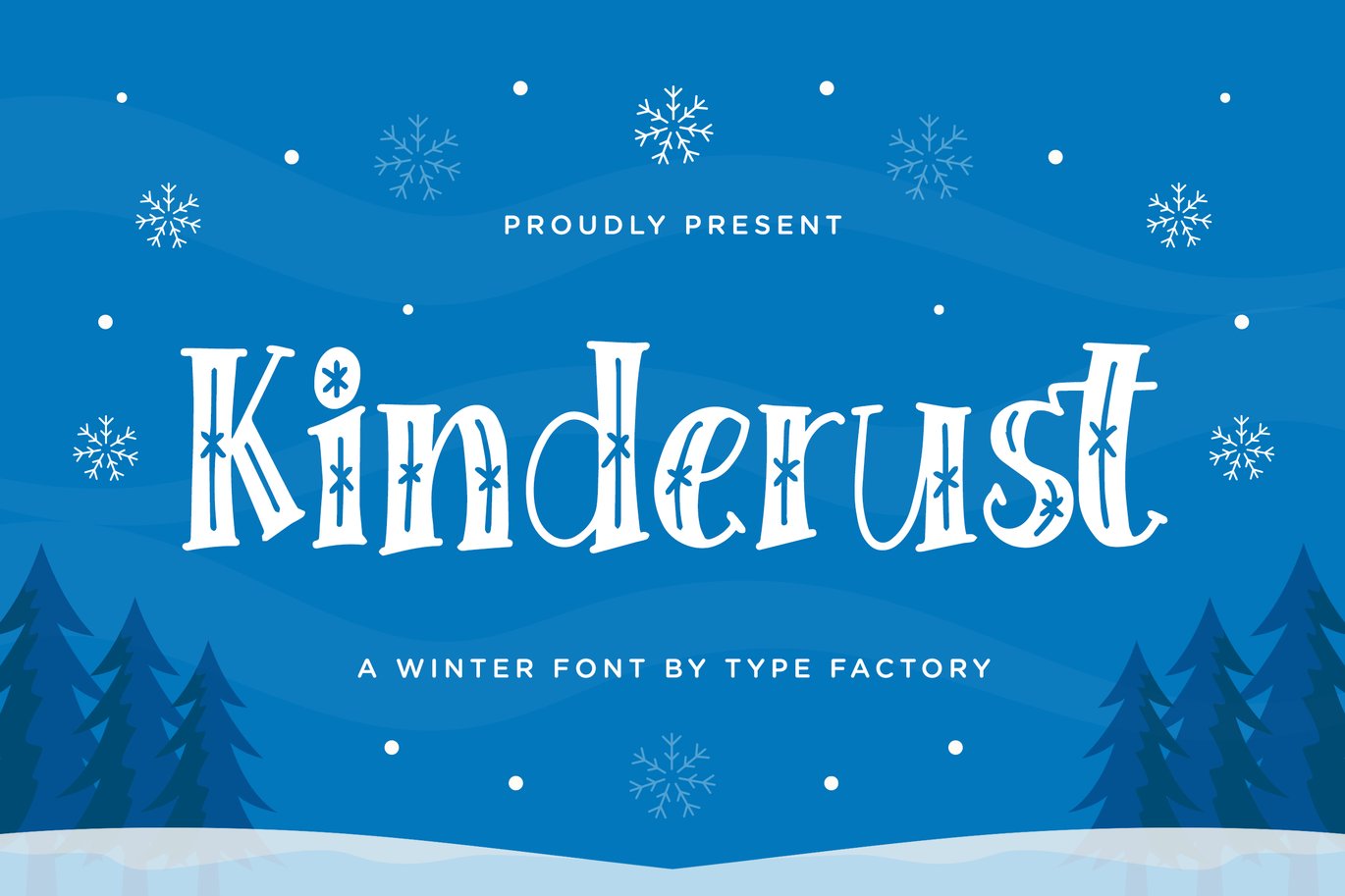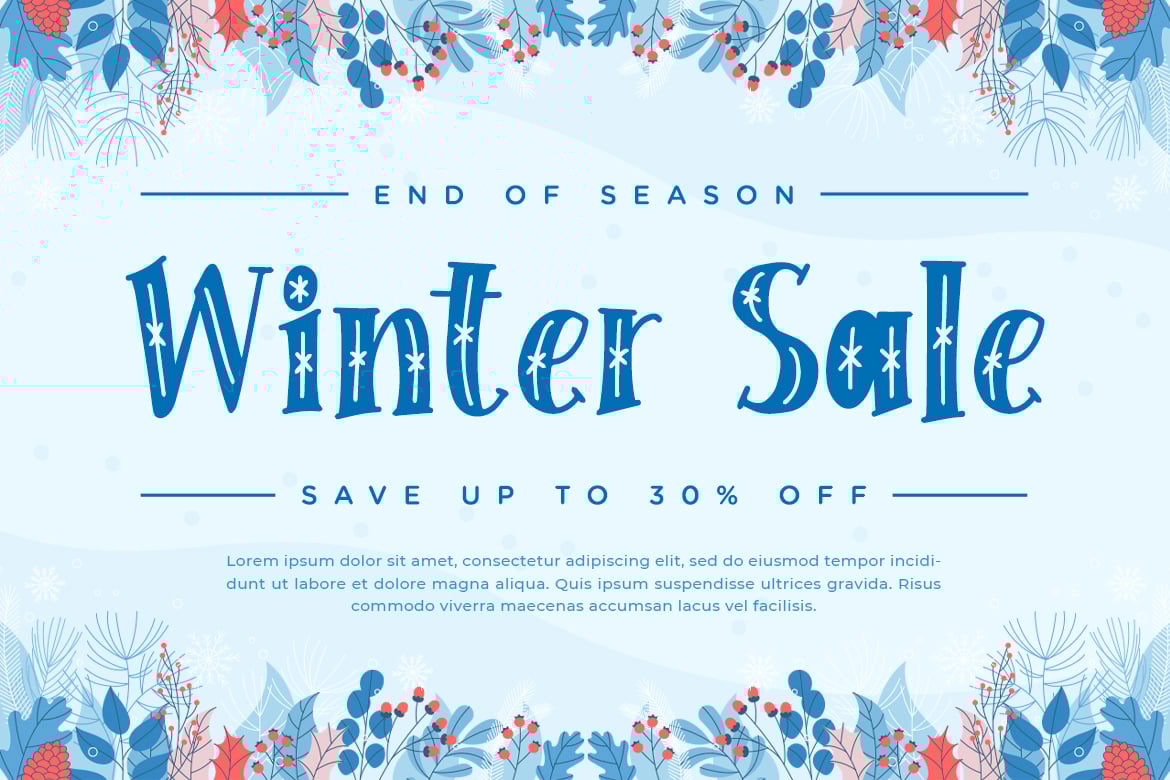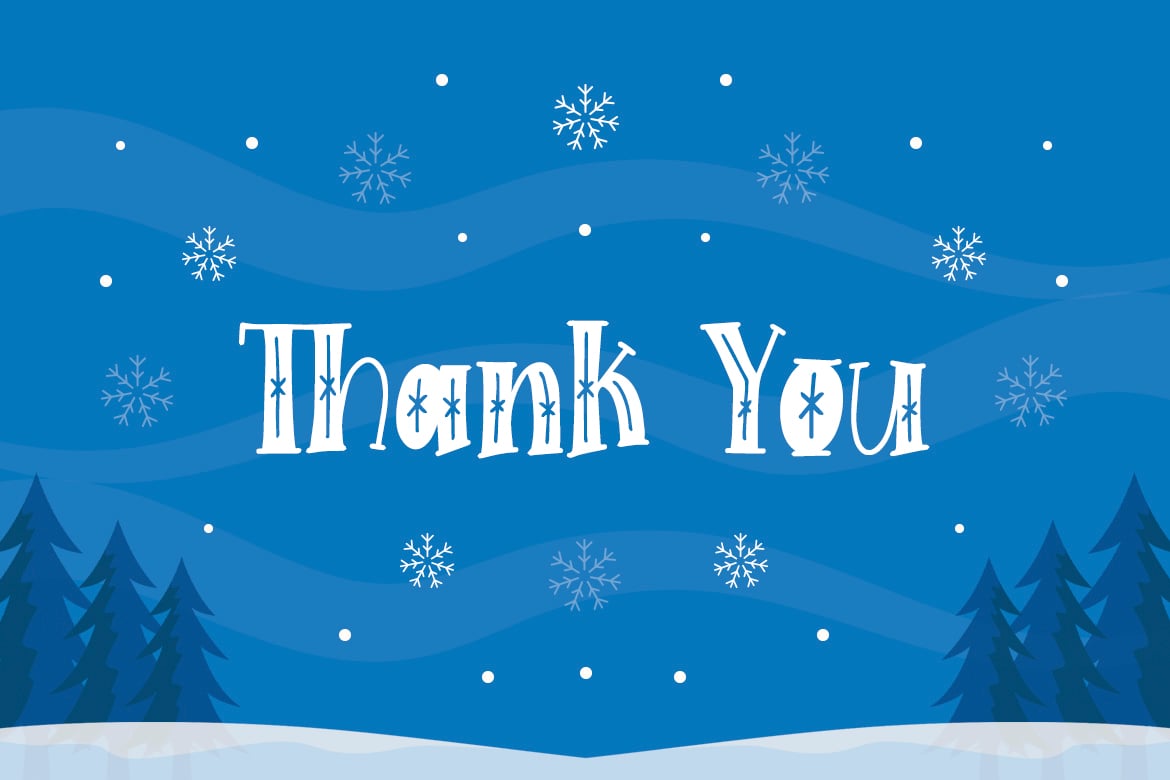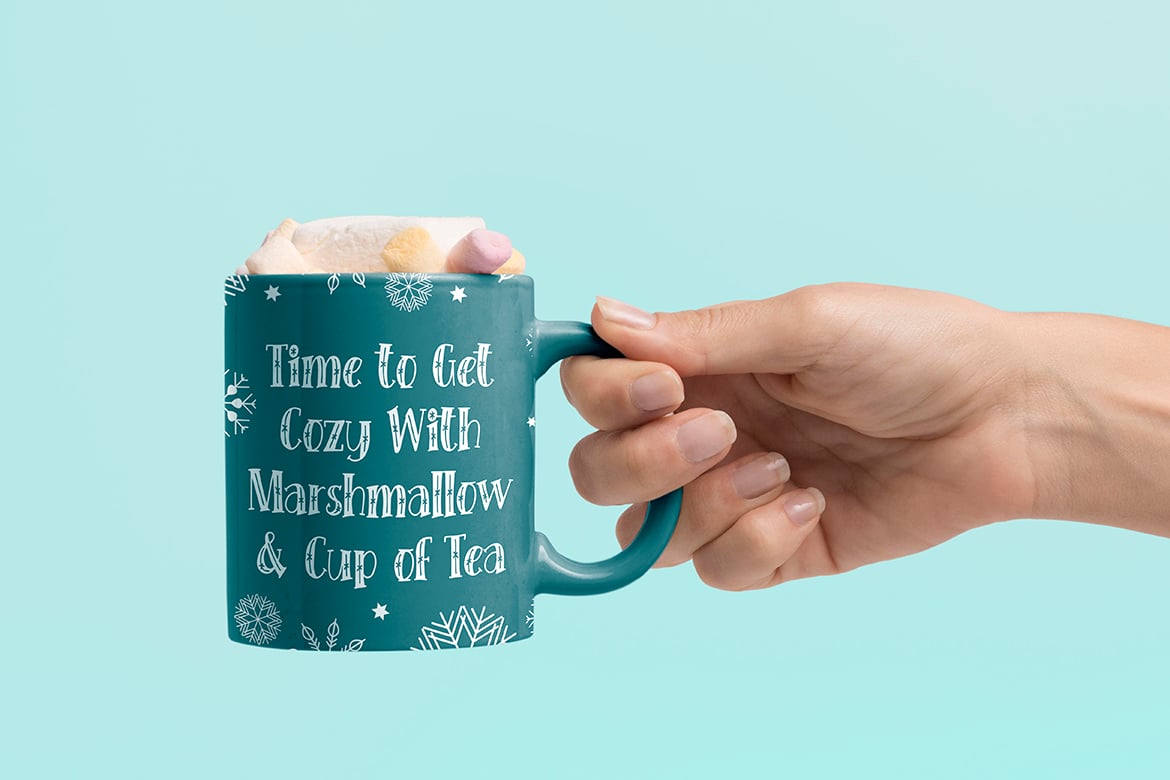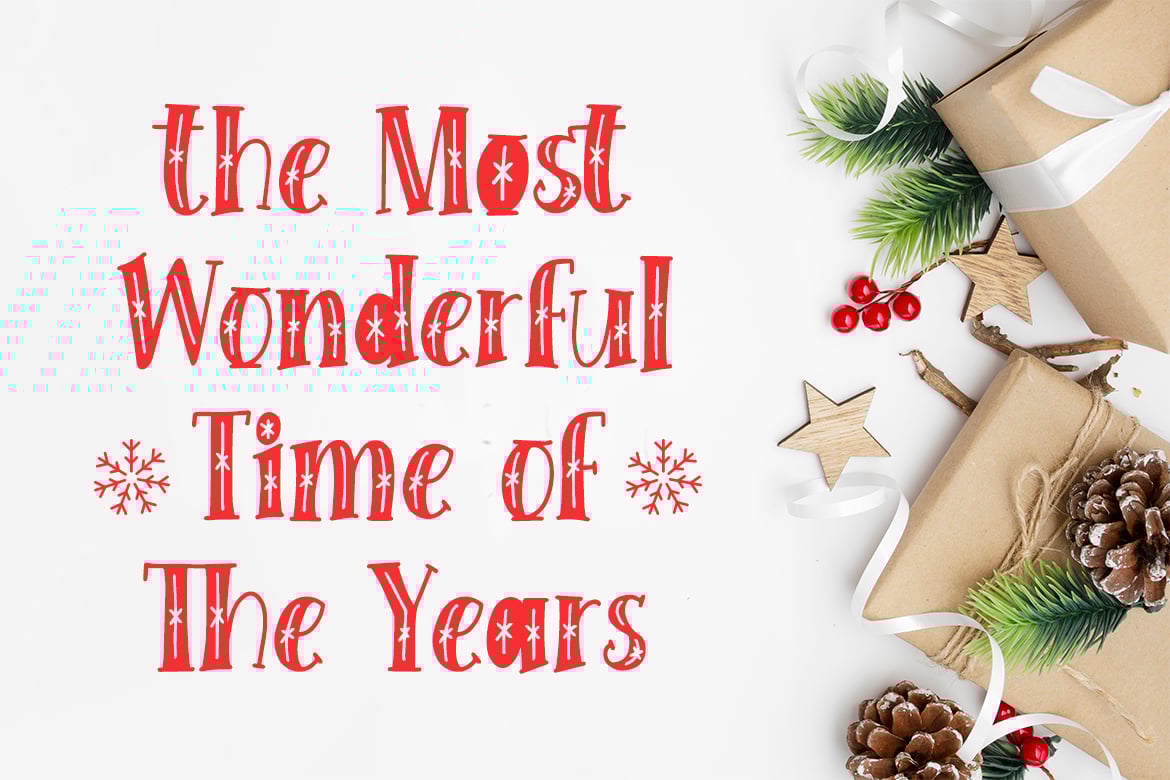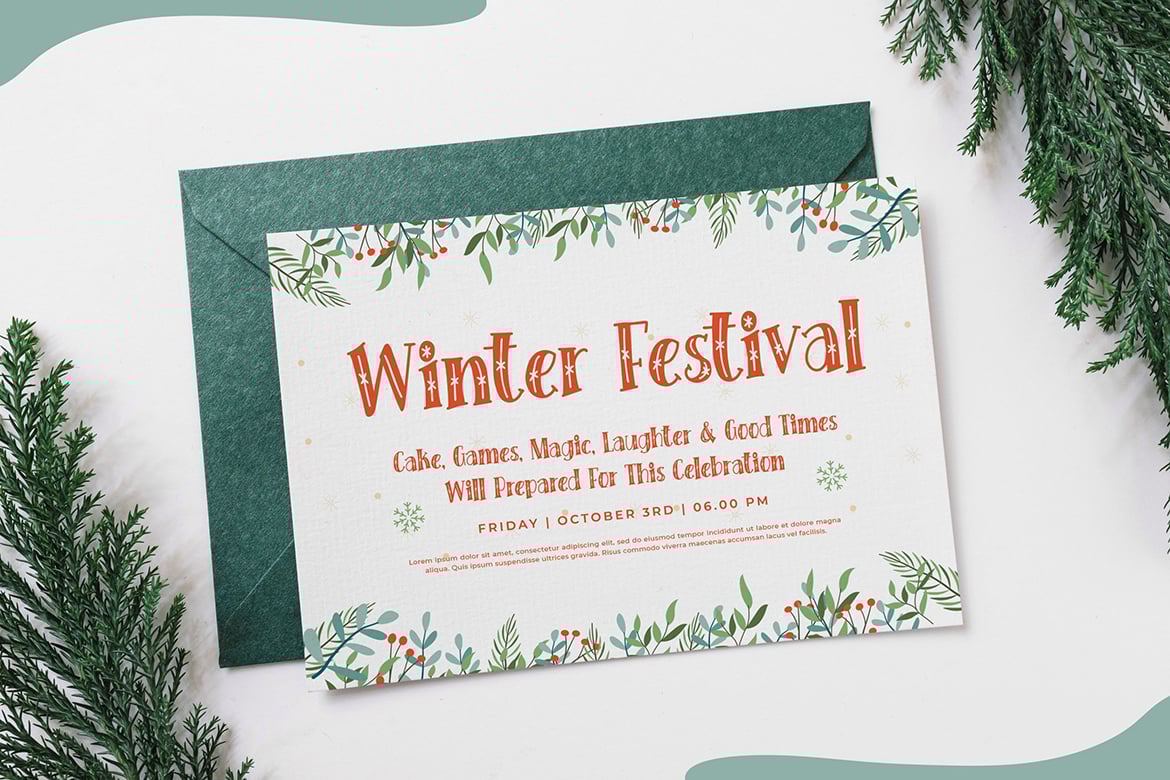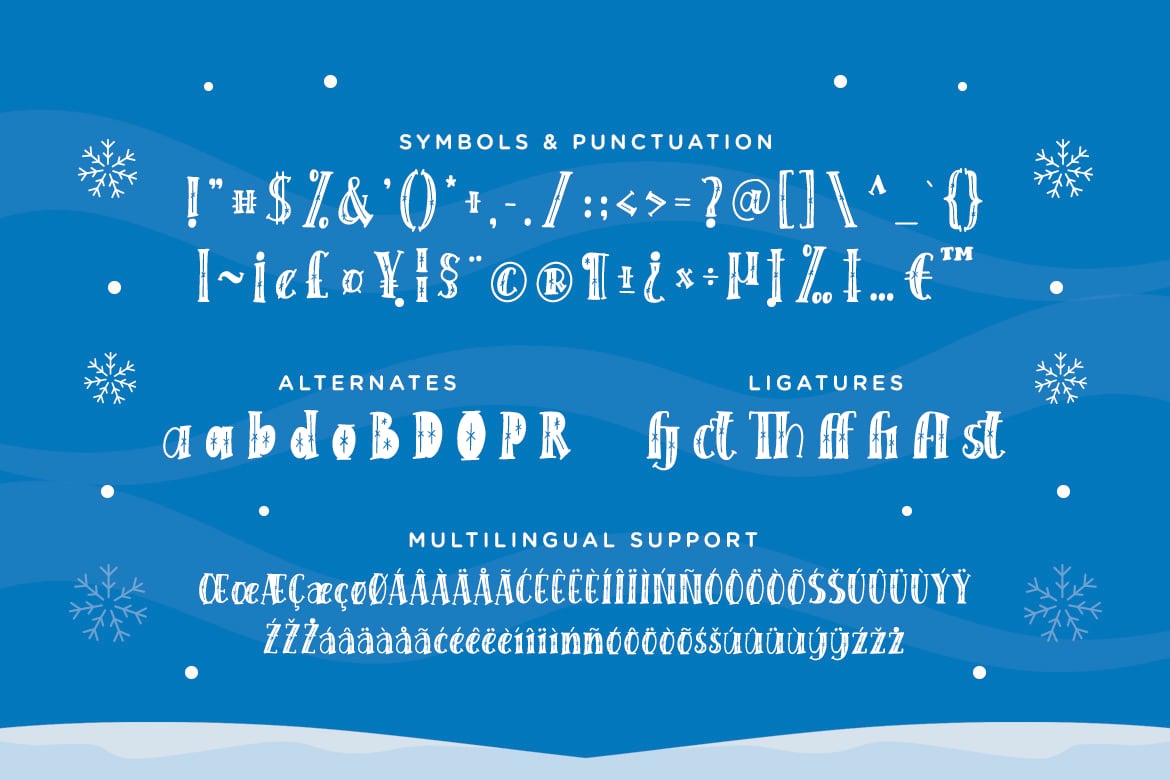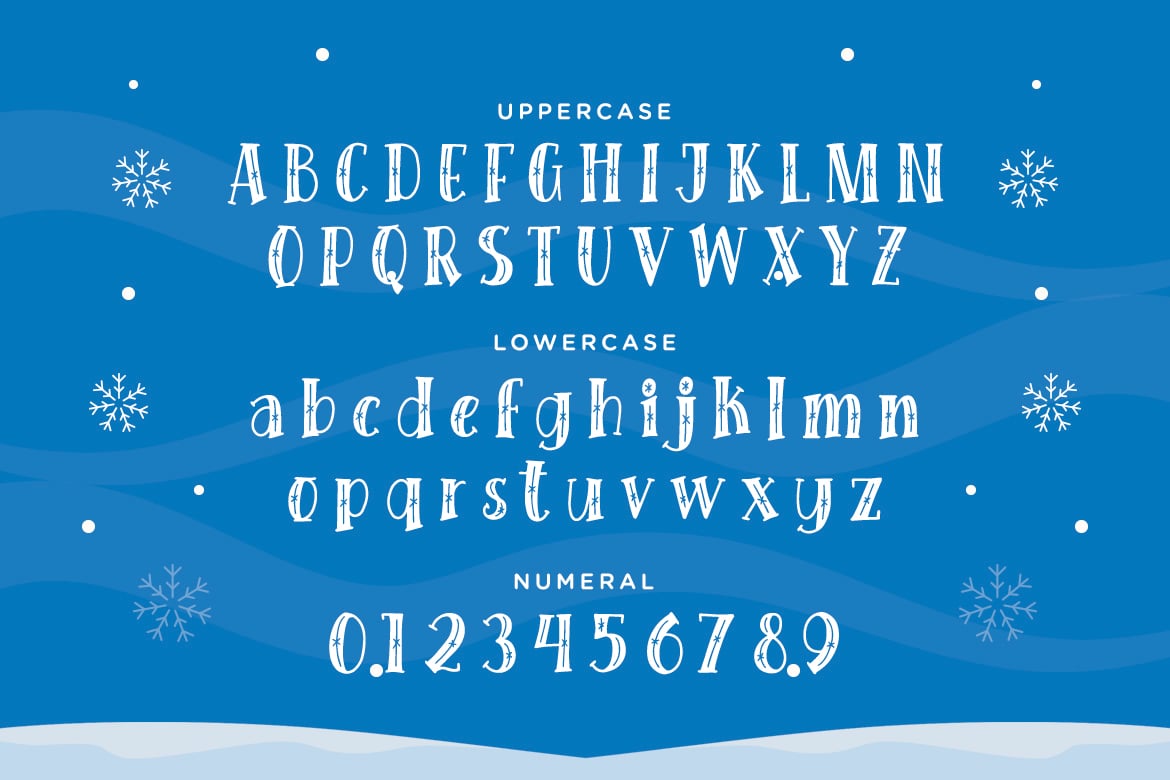
Kinderust – Winter Font
Kinderust is a modern and incredibly unique winter display font.
It is ideal for your winter designs as well as for any design that may need a trendy touch.
Have fun with this beautiful font and explore its endless variations.
- Symbols & Punctuation